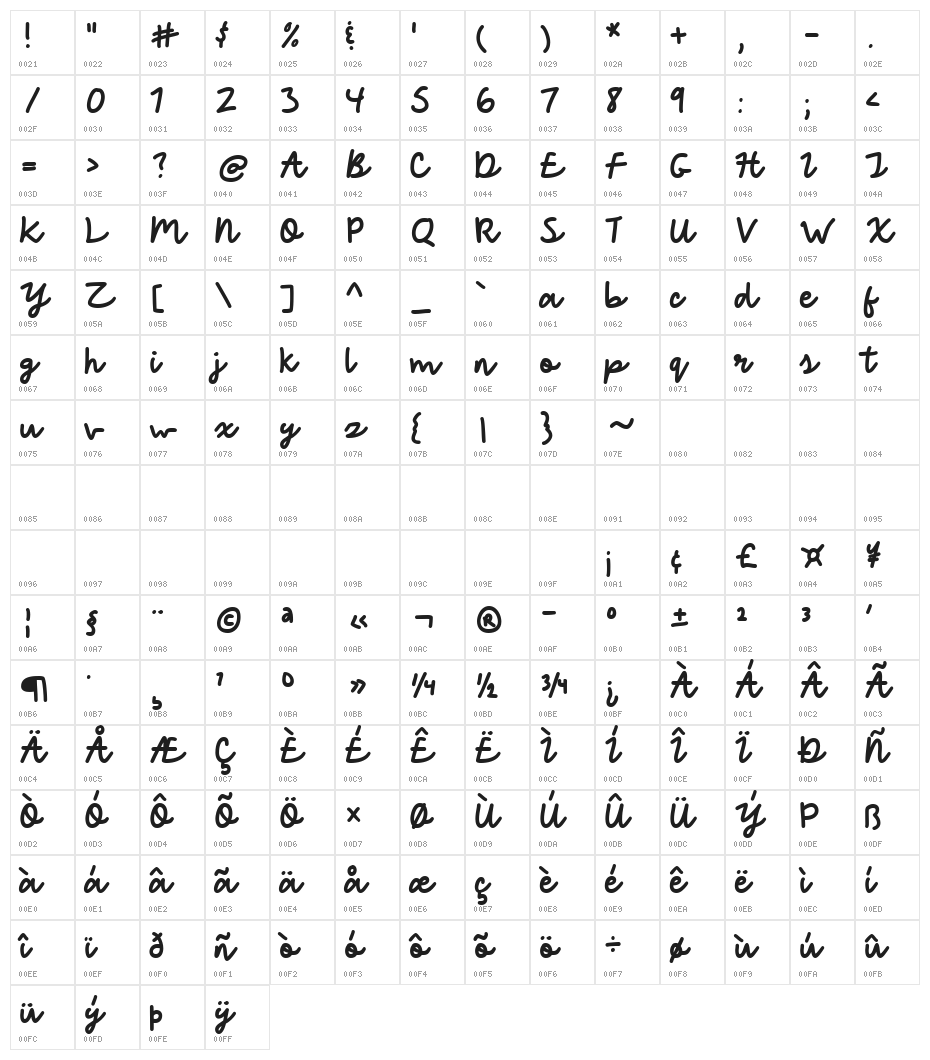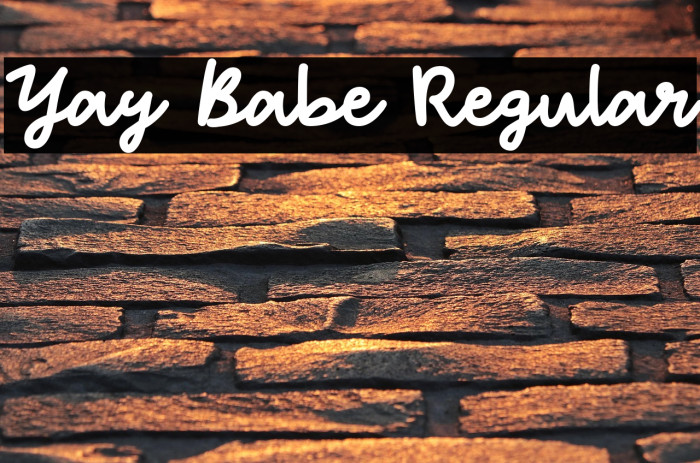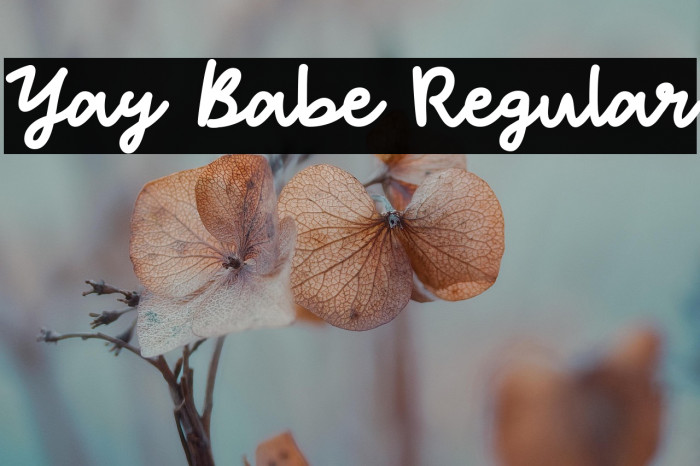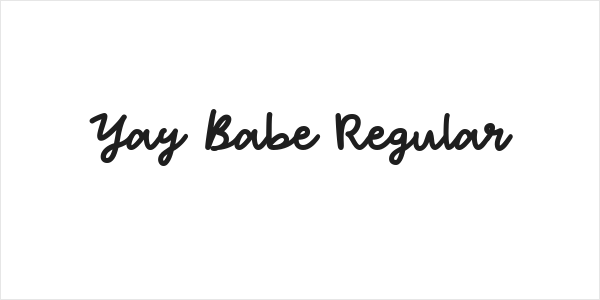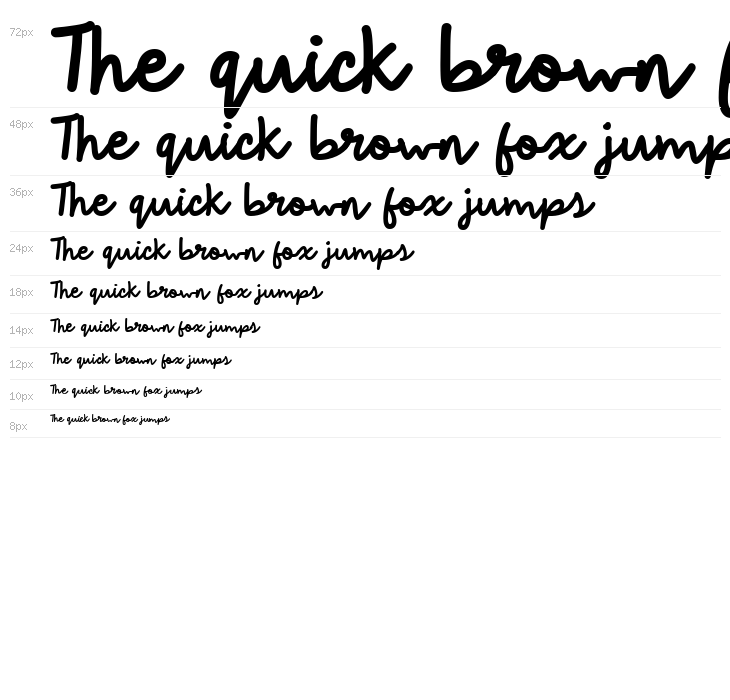
Yay Babe Regular Font
Yay Babe Regular Description
This font features a lively and playful script style, characterized by its flowing, cursive letterforms. The strokes are smooth and rounded, giving it a friendly and approachable appearance. The uppercase letters are slightly more structured, while the lowercase letters exhibit a more fluid and connected design, enhancing the handwritten feel. The numerals and special characters maintain the same playful aesthetic, ensuring consistency across all glyphs. This font is ideal for projects that require a personal touch, such as invitations, greeting cards, or branding materials that aim to convey warmth and creativity.
| Proposed Projects | Ideal for invitations, greeting cards, and creative branding materials. |